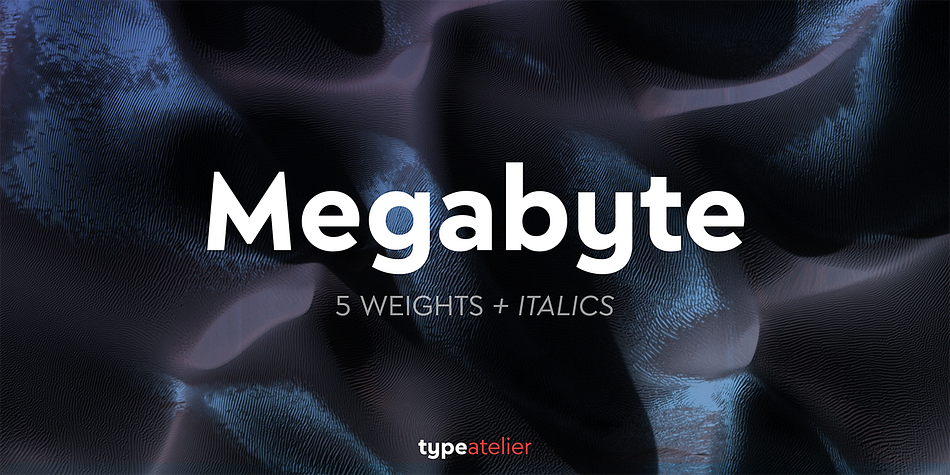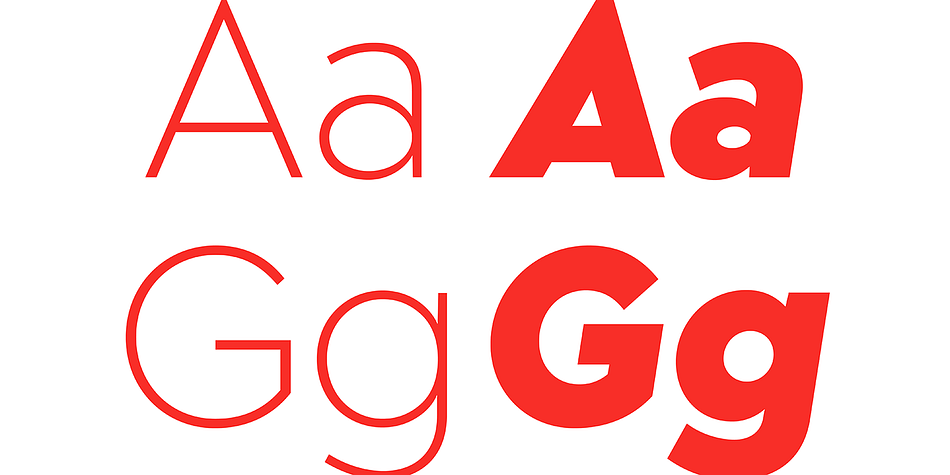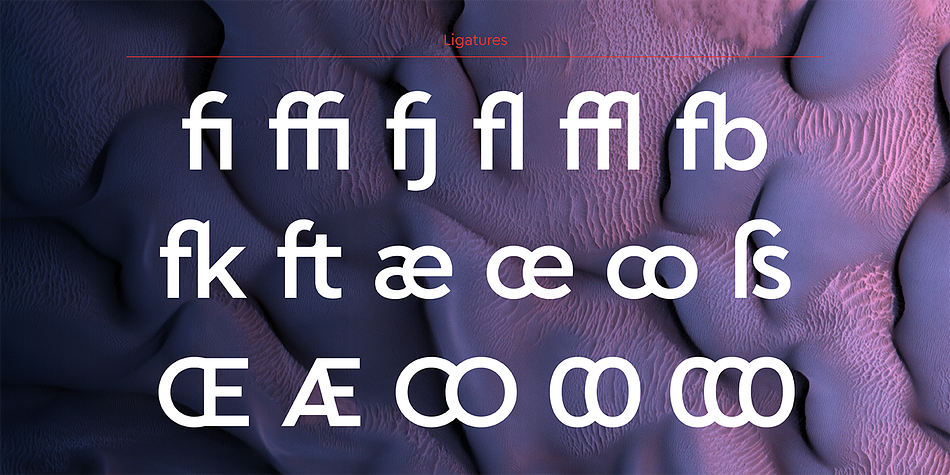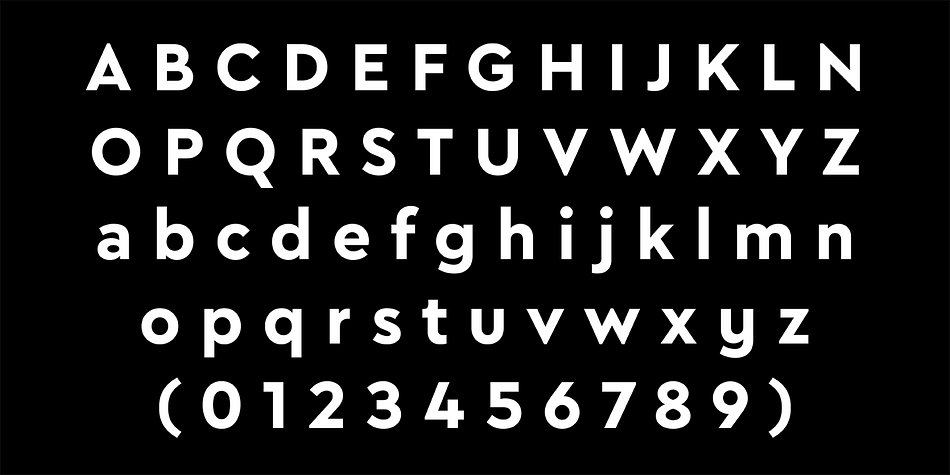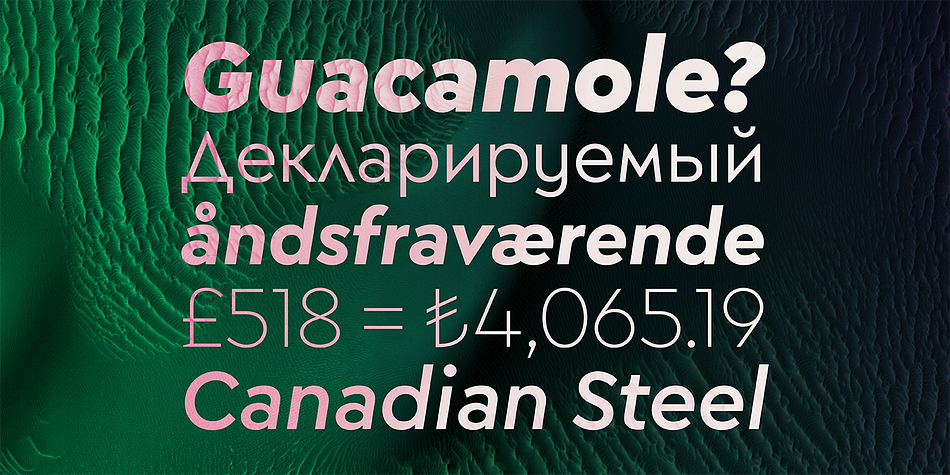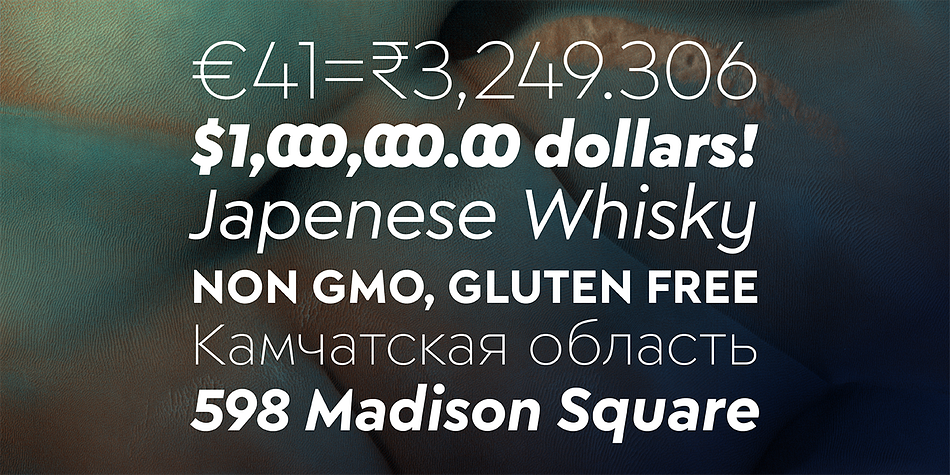
Designed by Thomas Gillett, Megabyte is a sans serif font family. This typeface has ten styles and was published by Type Atelier.
Megabyte is a modern sans serif typeface built with minimal tapering and a geometric foundation in mind. The family contains 10 weights from light to black with matching italics that slant at 9°.
Working on Megabyte, we’ve aimed to create a reliable workhorse typeface with the widest possible range of implementation. With its quirky curves and sharp edges Megabyte functions equally well in bulk text and in headings.
Designed with an extensive collection of OpenType features and alternative forms, each weight includes extended language support + Cyrillic, ligatures, arrows, symbols and much more.
Megabyte is ready to be put to work. Designed by Thomas Gillett, metrics and engineering with the help of Erin McLaughlin (Hindi Rinny).